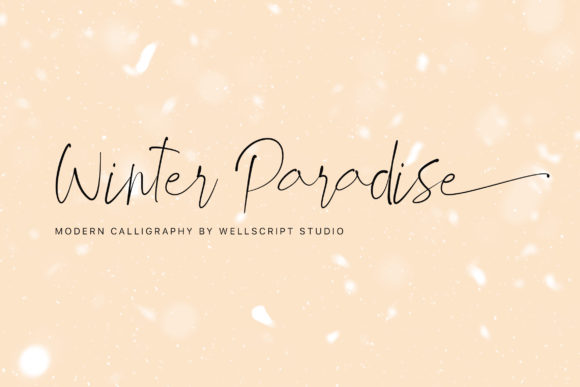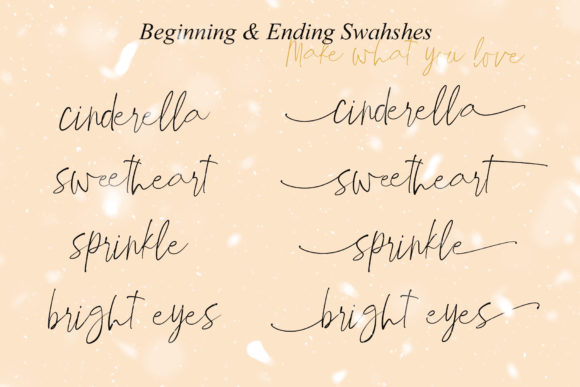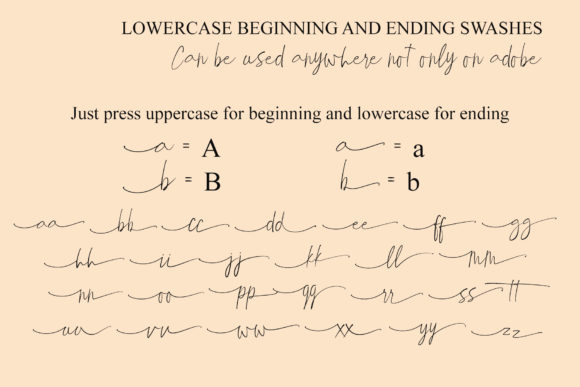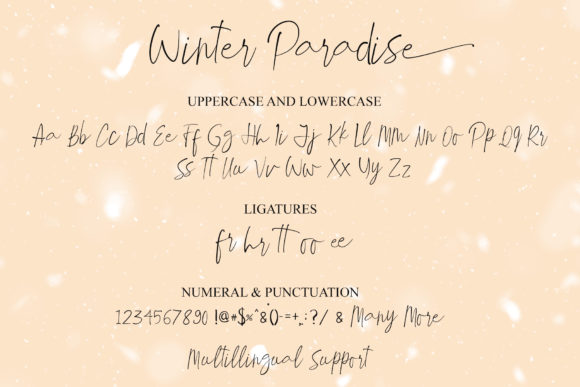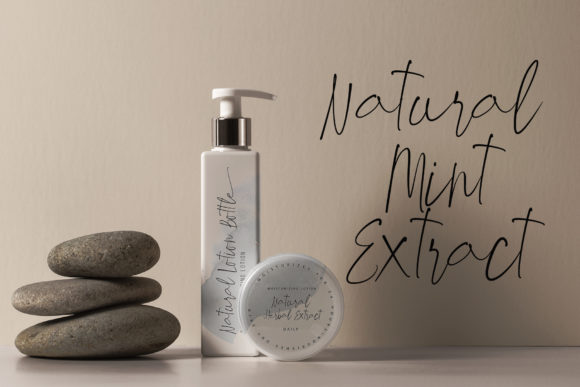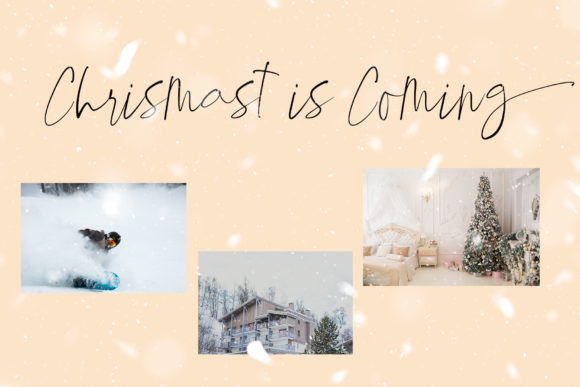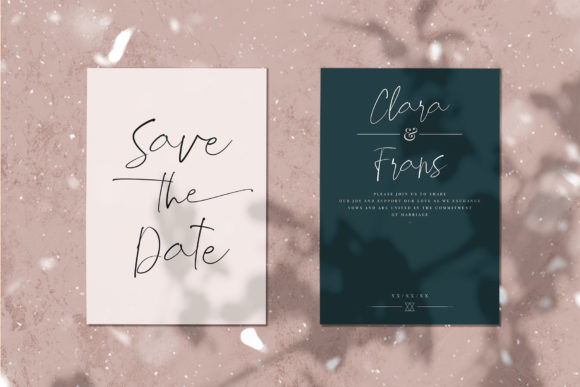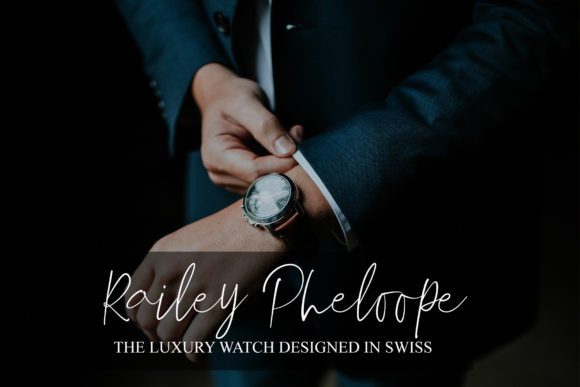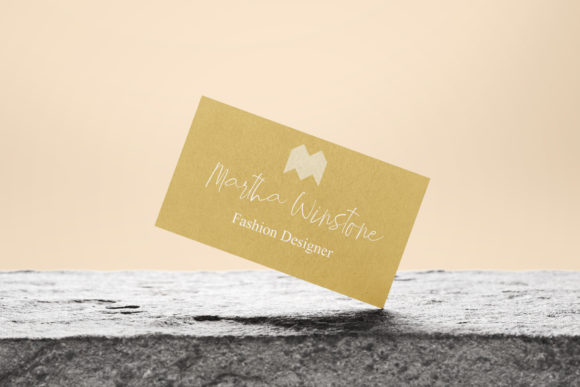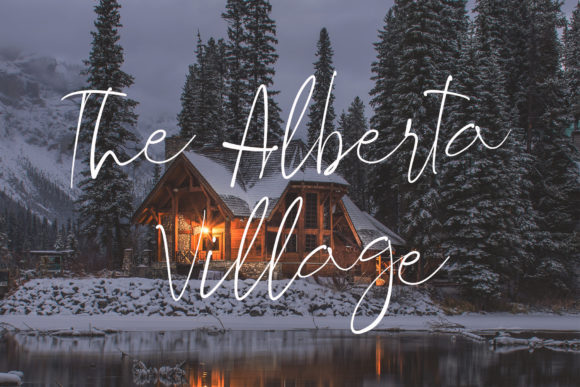
Winter Paradise Font
About Winter Paradise Font
Winter Paradise is stunning and fancy calligraphy script with a natural & simple style. This collection of scripts is perfect for branding.